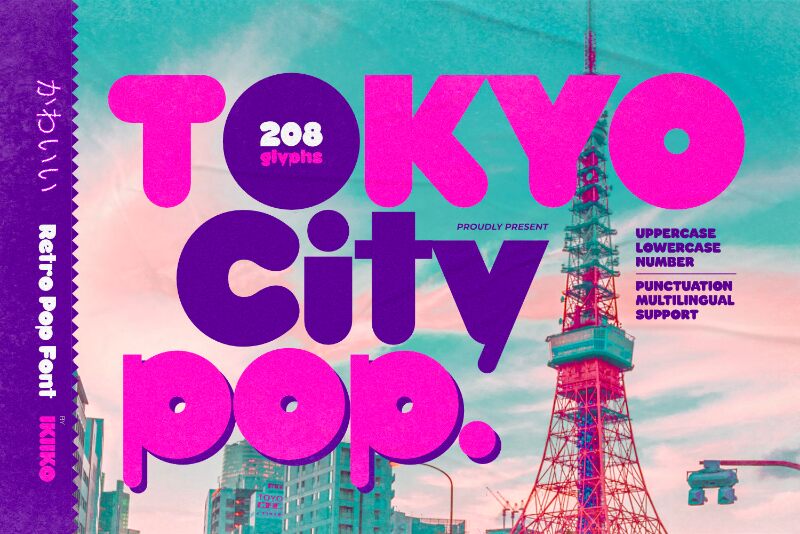
Tokyo City Pop font by Ikiiko Type is a free fancy typeface that brings a retro-inspired vibe to your creative projects. With its vibrant and energetic design, this font combines a modern twist with bold presence to capture a nostalgic yet playful vibe. Eye-catching and cheerful, Tokyo City Pop provides a lively touch wherever it is used.
This font is particularly suitable for album covers, advertising, arts and crafts, blackboard designs, book and magazine covers, clothing, embroidery, gift cards, and a whole lot more. It communicates in a loud but stylish way, which will allow it to push your ideas forward with minimal visual effort.